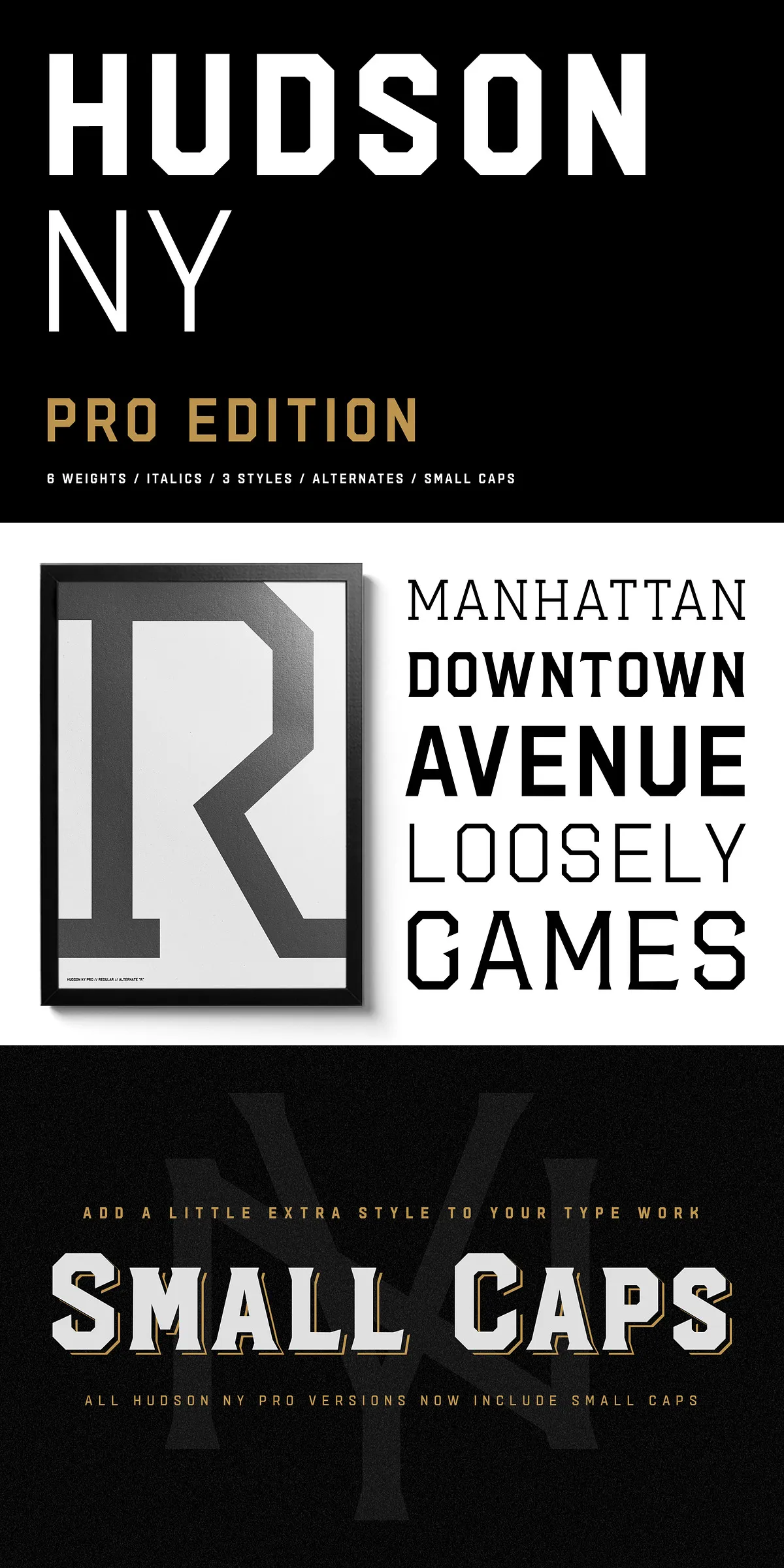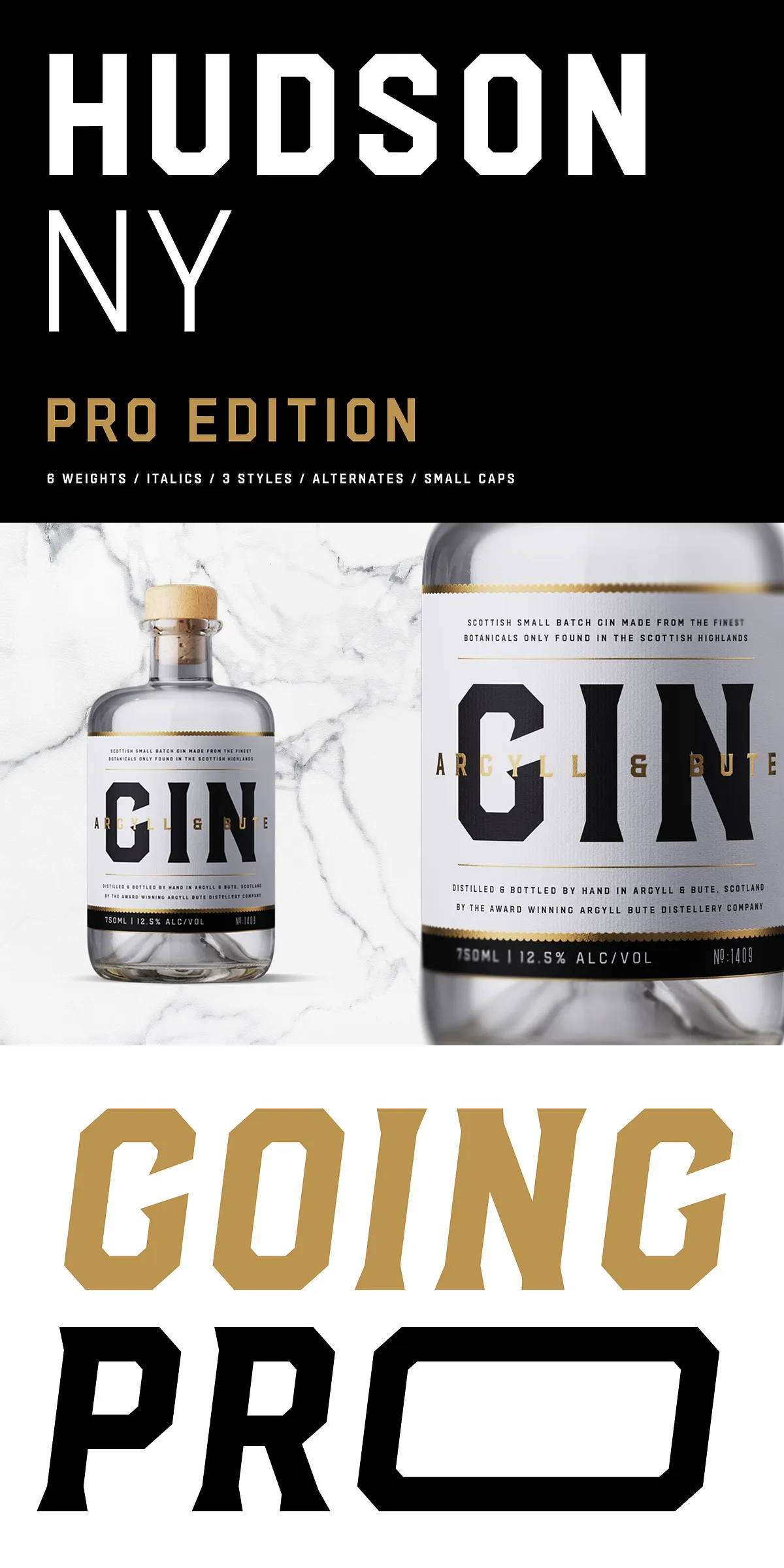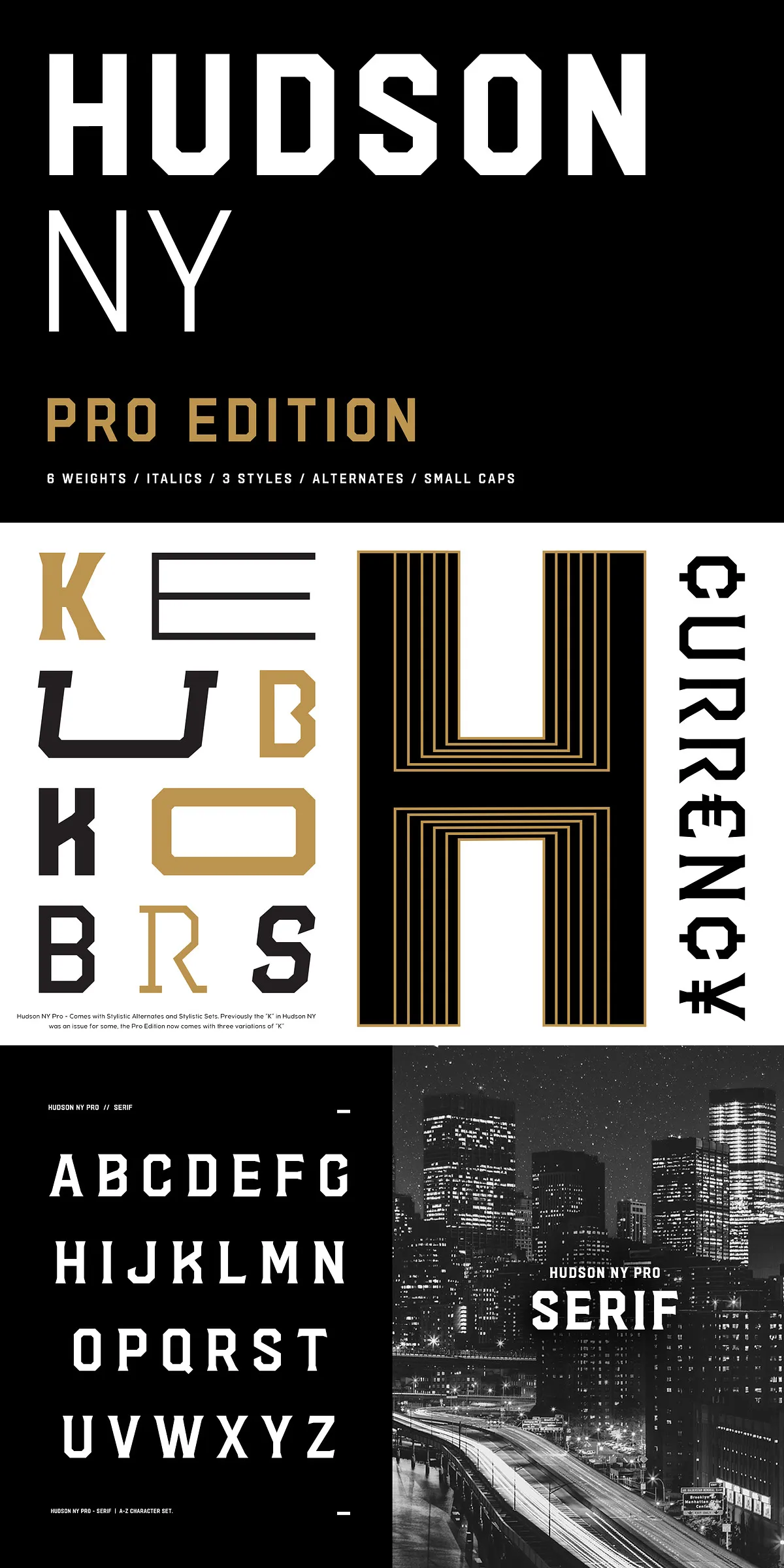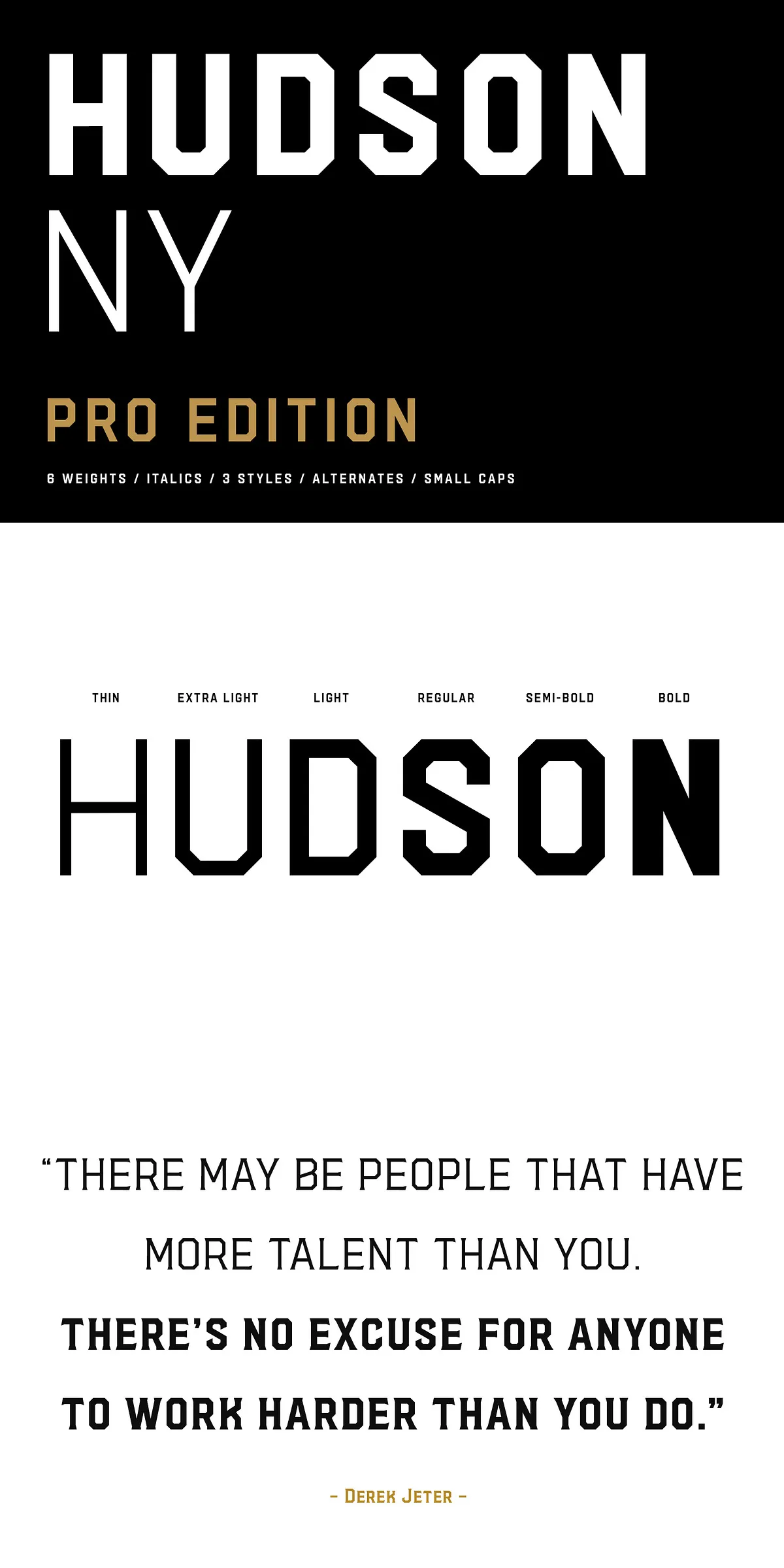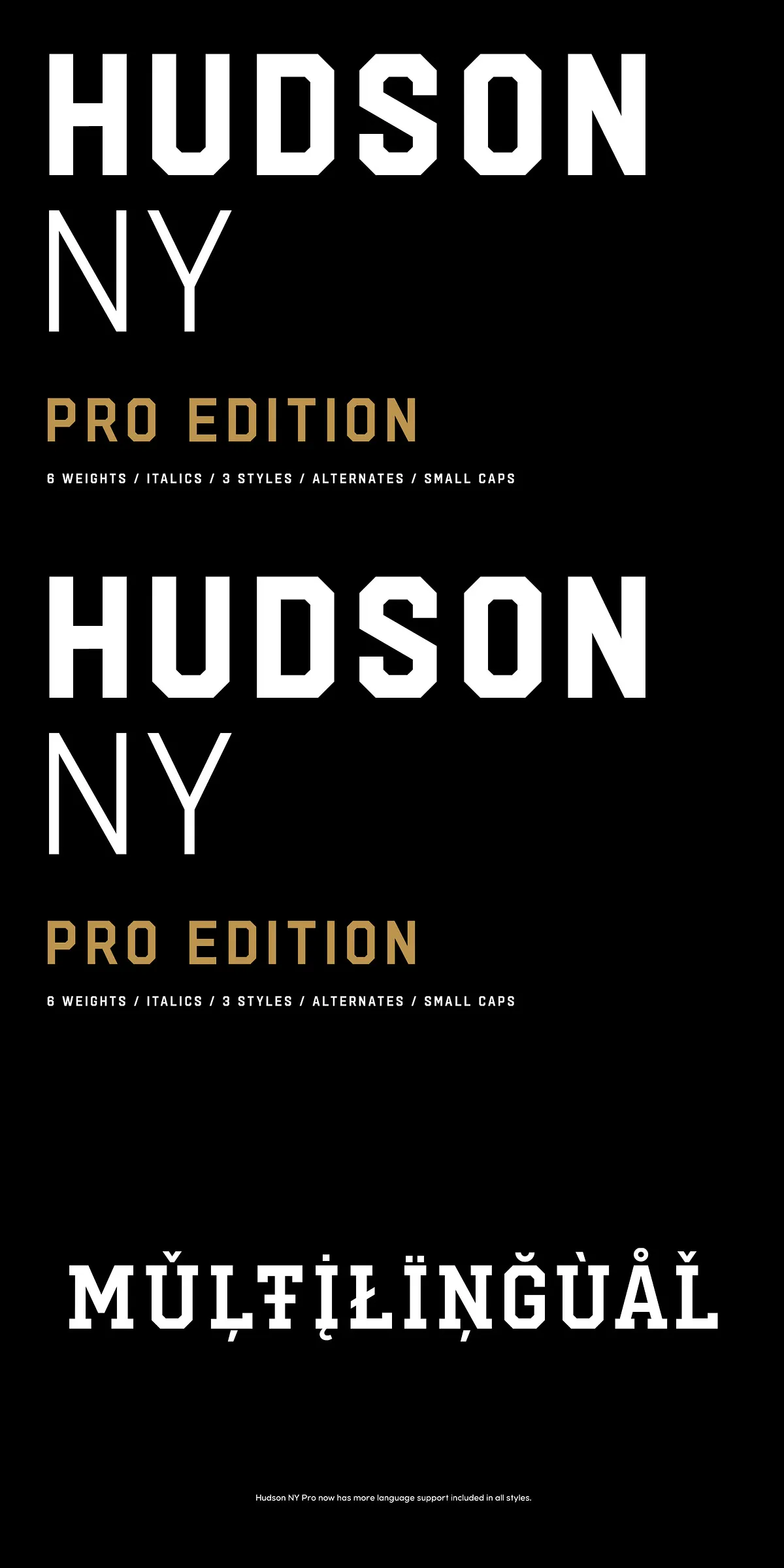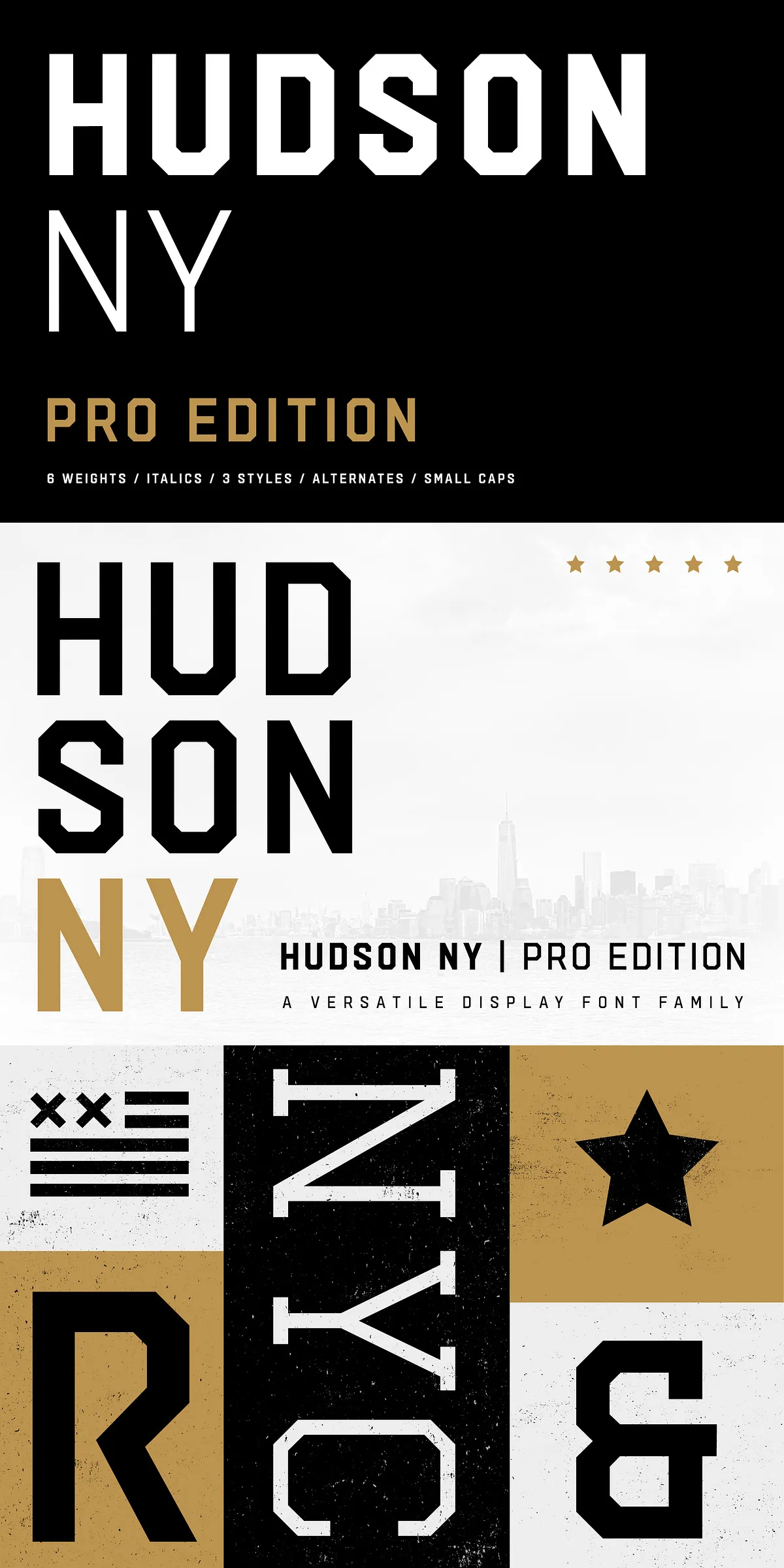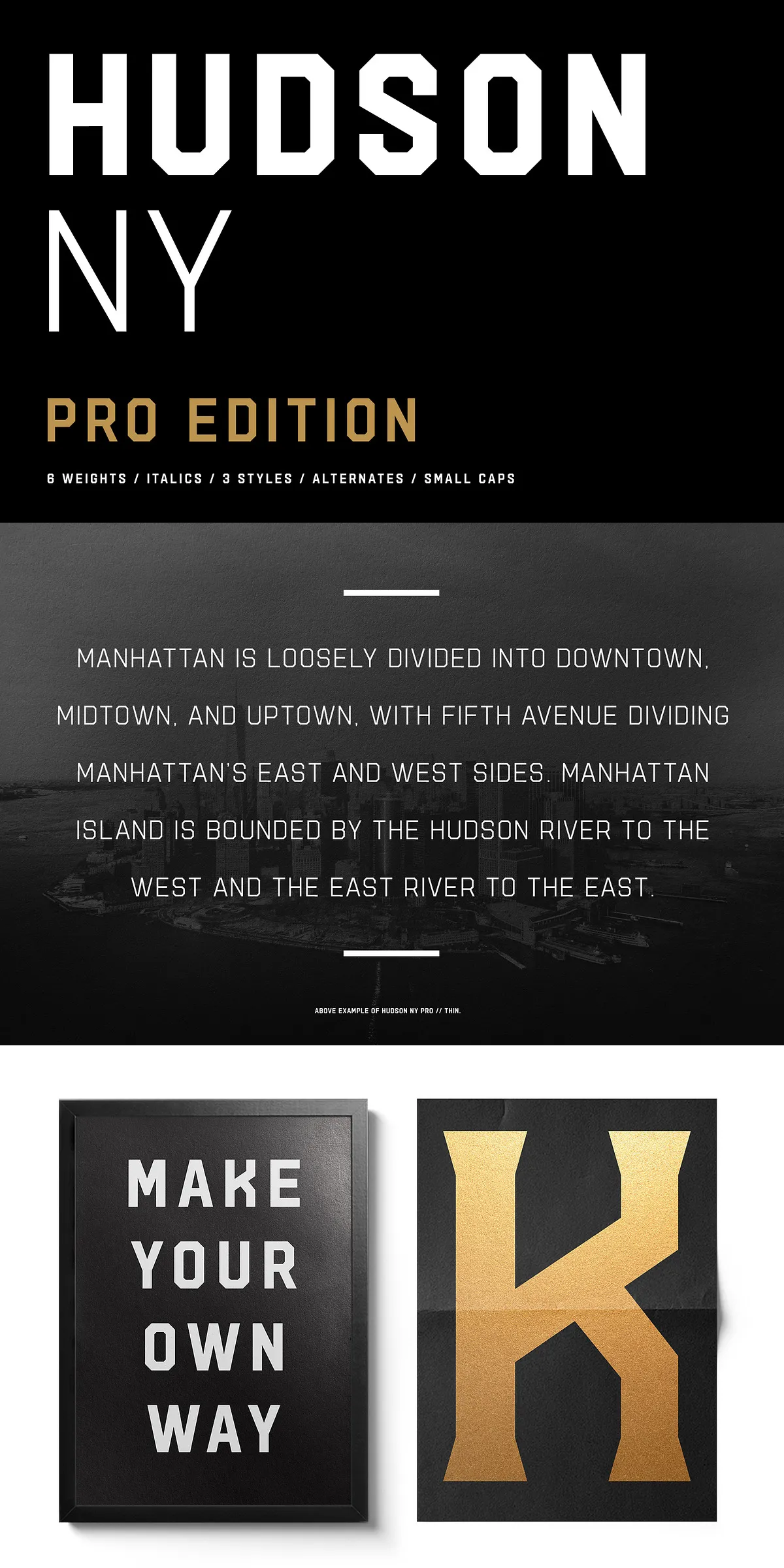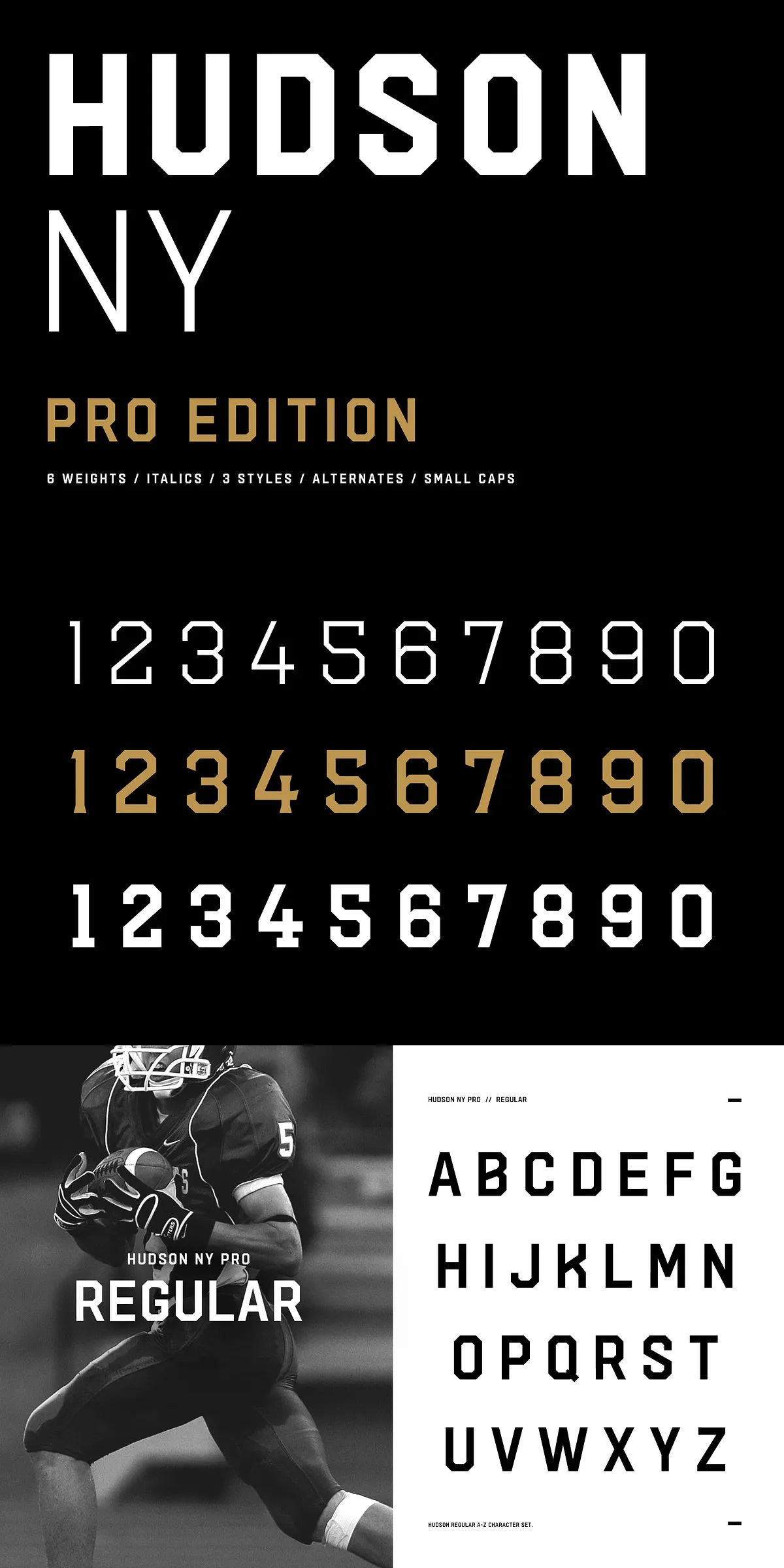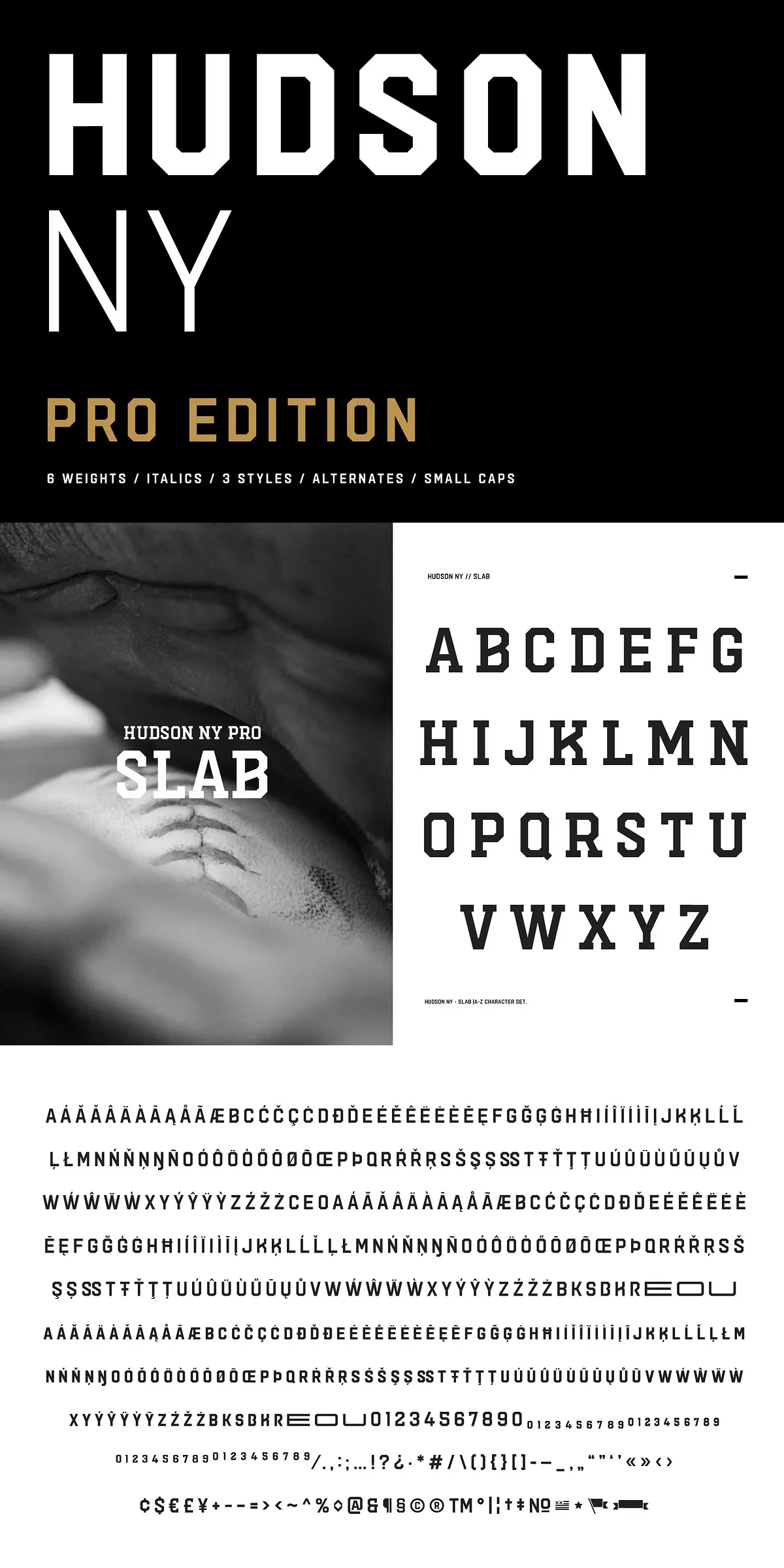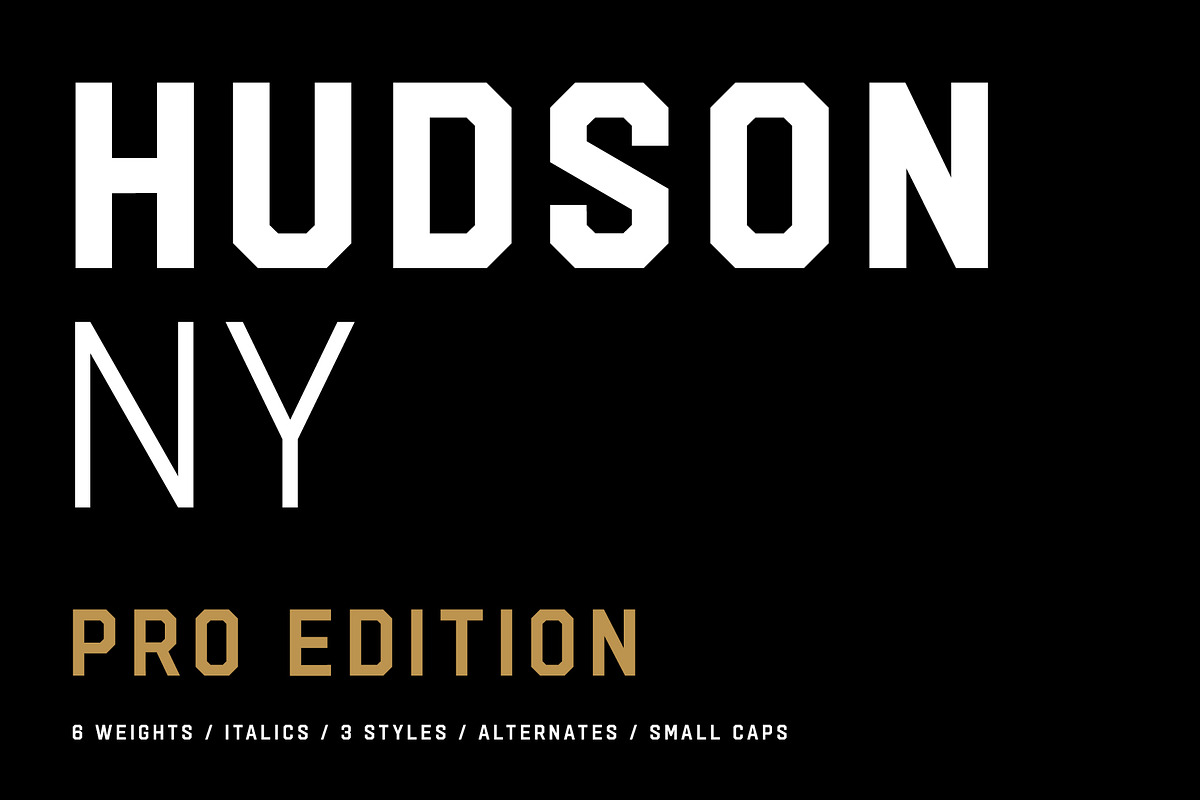
25% OFF: Hudson NY Pro launches as a powerful upgrade to the original Hudson NY family, delivering the weight variations and alternate glyphs users requested. We rebuilt glyphs, expanded the weight range, and added production-ready typographic features so designers can work faster and achieve stronger typographic results. Hudson NY Pro now performs beautifully across sports branding, beverage labels, entertainment graphics, and bold display applications.
Comprehensive Redesign And Expanded Weight Options For Designers
We completely re-drew Hudson NY to create cleaner, more consistent letterforms across all styles. The Pro Edition offers three distinct styles — Regular, Serif, and Slab — and for each style there are six weights plus matching italics. This extended weight range gives you precise control over hierarchy, contrast, and mood. Move confidently from heavy headline statements to lighter supporting copy without sacrificing the family’s distinctive display personality.
Powerful Typographic Features Included For Real-World Use
Hudson NY Pro adds advanced features that make the family more usable and expressive. The Pro Edition includes Small Caps for refined set type, multiple Stylistic Sets to give you alternate treatments of key characters, and a wide selection of alternate glyphs for authentic display styling. These features let you craft logos, headlines, and packaging treatments that feel handcrafted without extra manual editing. We removed the slower press versions from the original family to focus on responsive, fast-loading, and widely compatible fonts.
Why Hudson NY Pro Works For Sports, Beverage, And Entertainment Projects
Hudson NY Pro emphasizes bold shapes, clear counters, and strong presence. Those traits suit high-impact applications such as team identities, event posters, bottle labels, and promo graphics. Use heavier weights for headline dominance and logos; select mid weights for subheads and badges; choose lighter weights for supporting elements. The serif and slab variants introduce character and texture, helping brands create distinct moods — from rugged and athletic to refined and artisanal.
Practical Tips For Applying Hudson NY Pro Across Media
- Logos and Wordmarks: Combine heavier weights with alternates to craft memorable identities that scale across print and digital.
- Packaging: Use slab or serif styles at display sizes to enhance shelf presence and create tactile appeal.
- Editorial & Posters: Exploit the extended weight range for layered typographic systems with clear visual hierarchy.
Hudson NY Pro transforms the original family into a more versatile, production-ready display toolkit. With its expanded weight range, italic counterparts, Small Caps, stylistic sets, and alternate glyphs, this release answers the most requested features from designers. Take advantage of the introductory 25% off offer to upgrade your type arsenal and start creating stronger, more flexible display typography for sports, beverage, entertainment, and beyond.